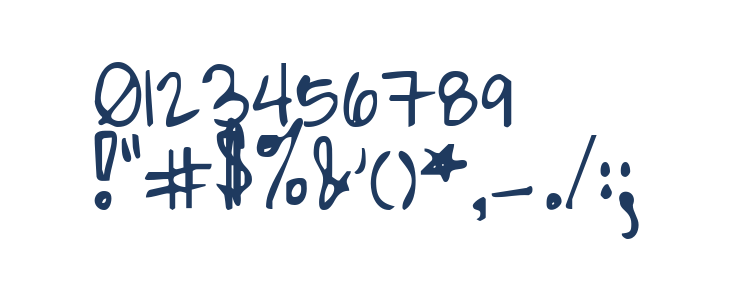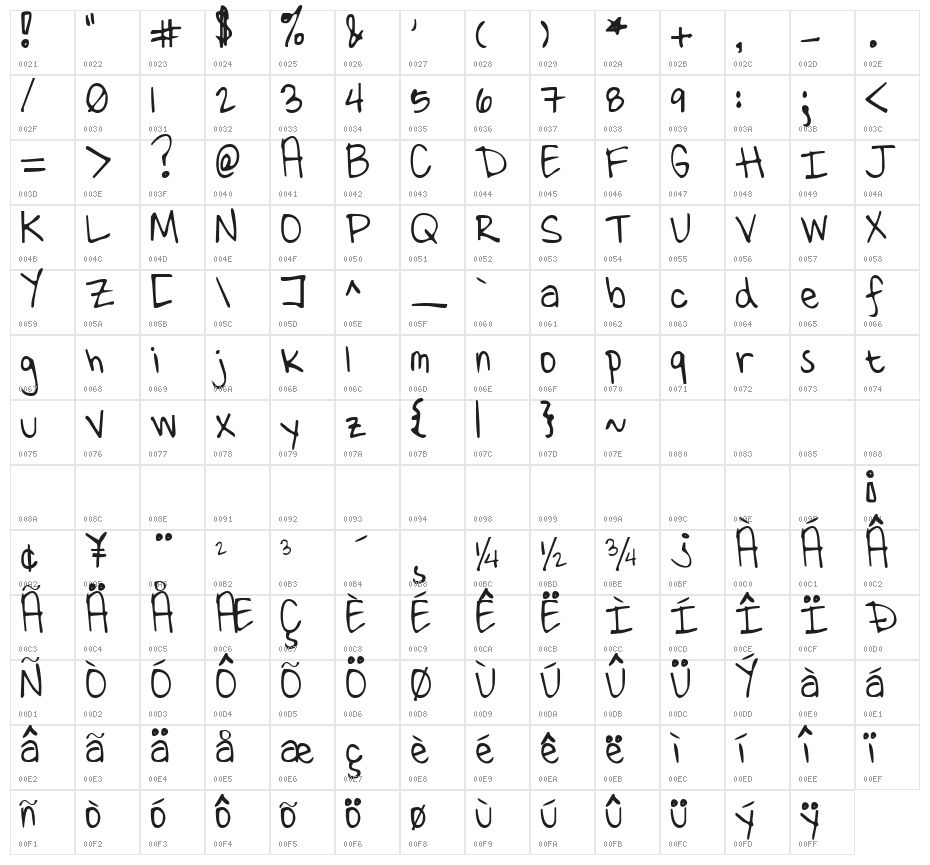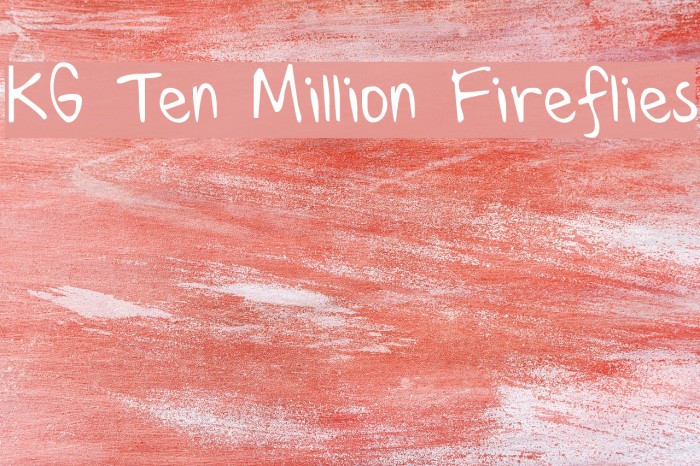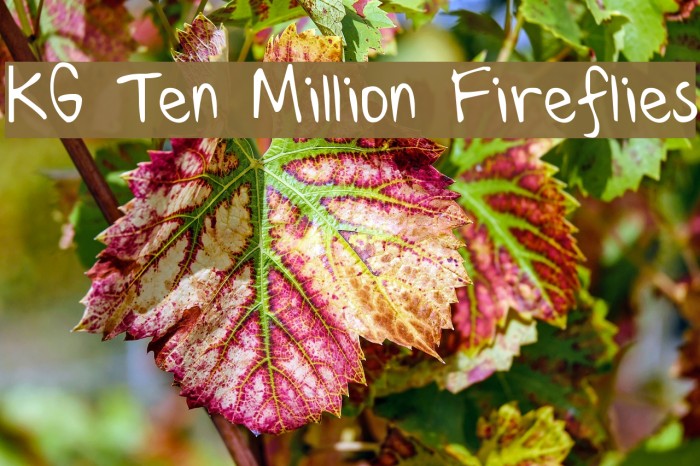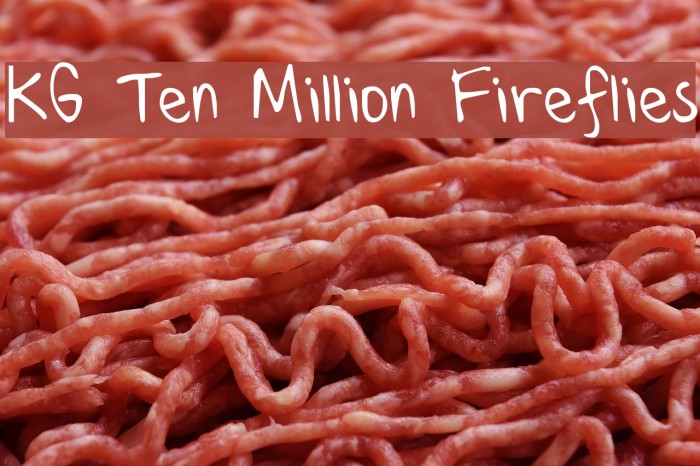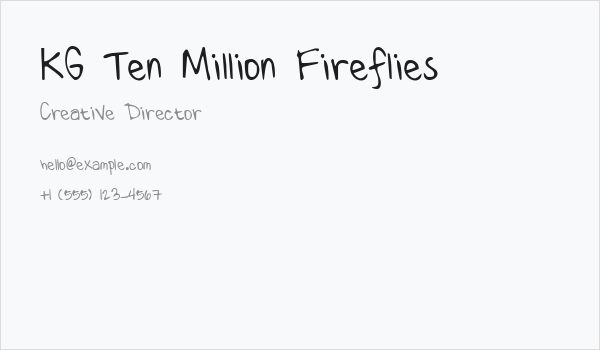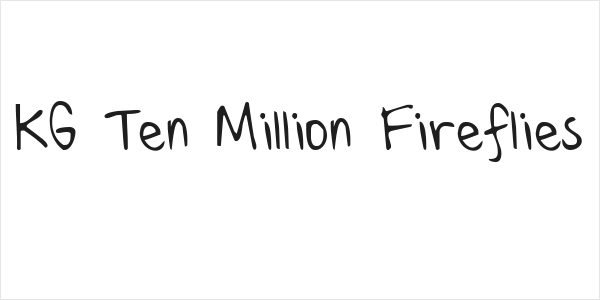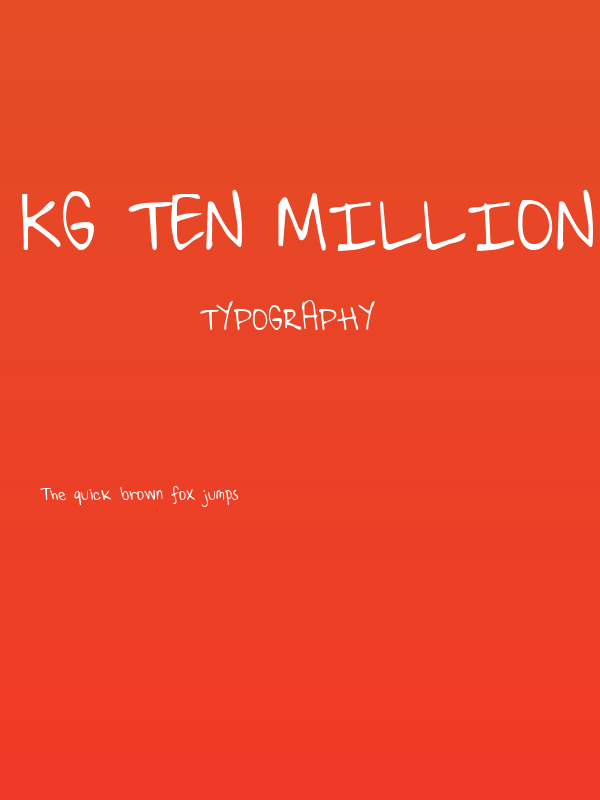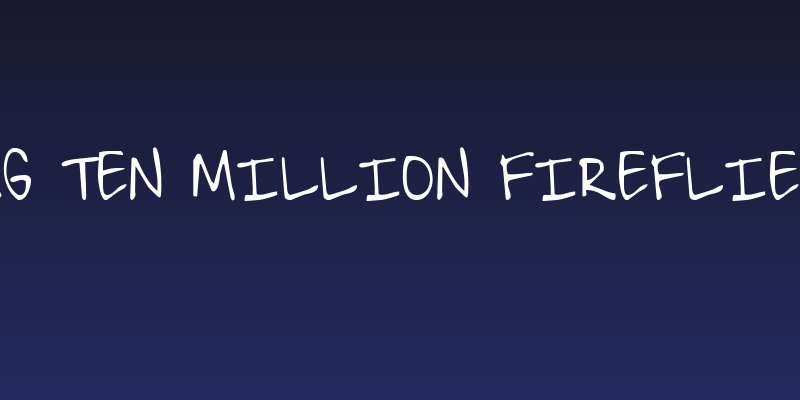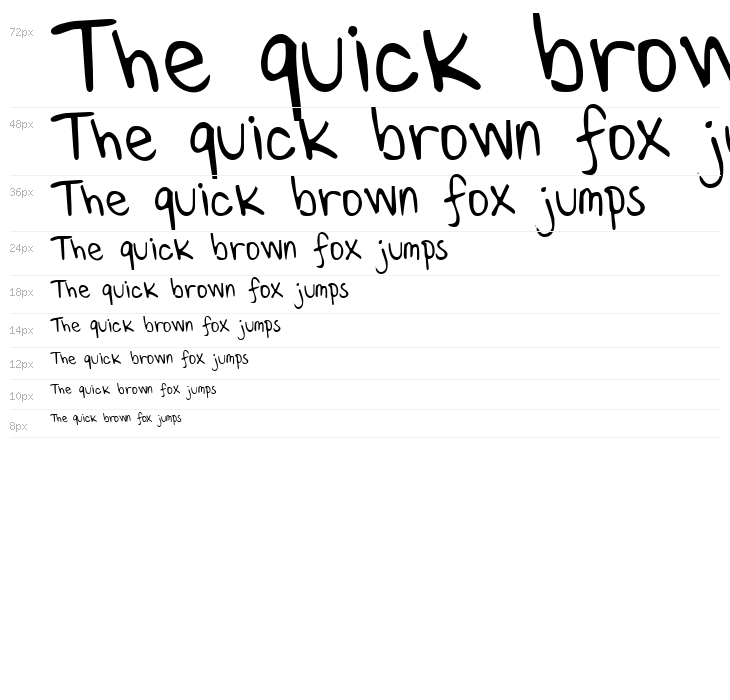
KG Ten Million Fireflies Font
KG Ten Million Fireflies Description
This font features a playful and whimsical handwritten style, characterized by its irregular strokes and casual appearance. The letters are slightly tilted and vary in size, giving it a dynamic and lively feel. The uppercase and lowercase letters maintain a consistent style, with rounded edges and a friendly demeanor. Numbers and special characters follow the same playful design, making the font versatile for various creative projects. The overall look is informal and approachable, perfect for adding a personal touch to designs.
| Proposed Projects | Ideal for children's books, greeting cards, playful branding, and informal invitations. |